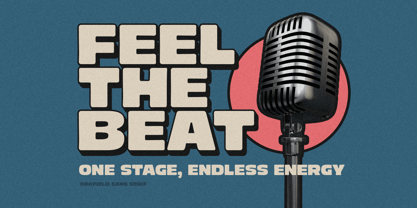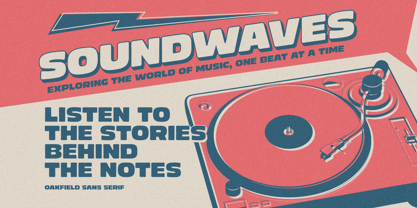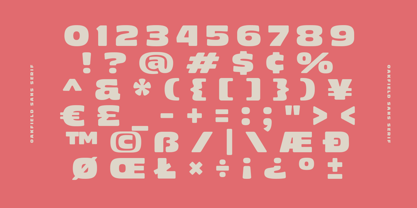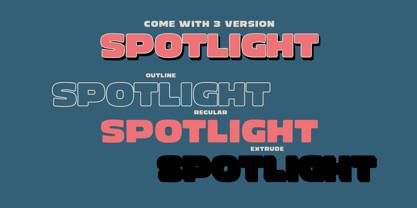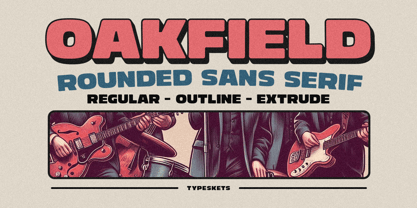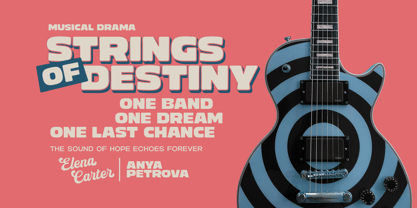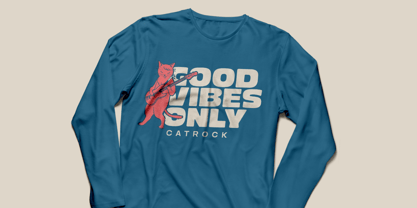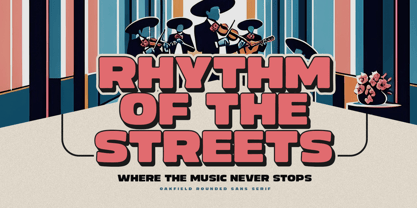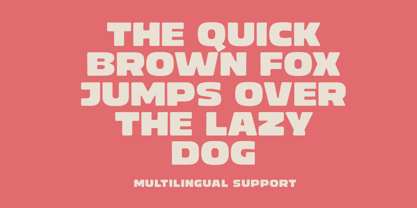
Oakfield
by Typeskets
The Oakfield Font Family was designed by Sahrul Hidayat and published by Typeskets. Oakfield contains 3 styles and family package options. More about this family
Oakfield - Rounded Sans Serif is a versatile and stylish typeface that merges a clean, modern aesthetic with a soft and approachable rounded design. This font strikes the perfect balance between boldness and simplicity, making it ideal for a wide range of creative projects. Its smooth curves and geometric proportions give it a timeless appeal that suits both digital and print designs effortlessly.
Available in three distinct styles—Regular, Outline, and Extrude—Oakfield offers unmatched flexibility to elevate your designs. Whether you're looking to create striking headlines, dynamic posters, or unique branding, these layered styles allow you to add depth and dimension with ease. Its adaptability ensures that your work stands out while maintaining a cohesive and professional look.
Oakfield’s retro-modern vibe makes it perfect for music-themed projects, vintage-inspired visuals, or contemporary designs with a nostalgic twist. Whether used in logos, merchandise, or editorial layouts, this rounded sans serif adds a distinctive charm that captivates and engages audiences. Let Oakfield transform your creative vision into a bold and memorable statement.
Designers: Sahrul Hidayat
Foundry: Typeskets